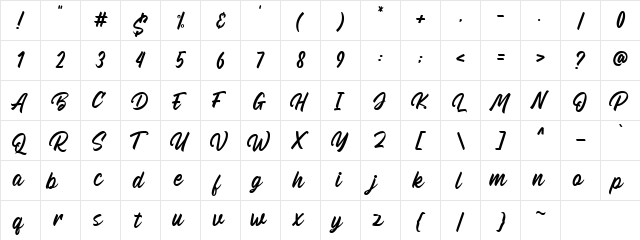
Billskates DEMO Regular
| Foundry | Letterhend |
| Designer | Fahrul Arjianto |
Design Context for Billskates DEMO Typeface
Billskates DEMO is a composed and adaptable typeface that performs quietly and consistently across a wide range of design contexts.